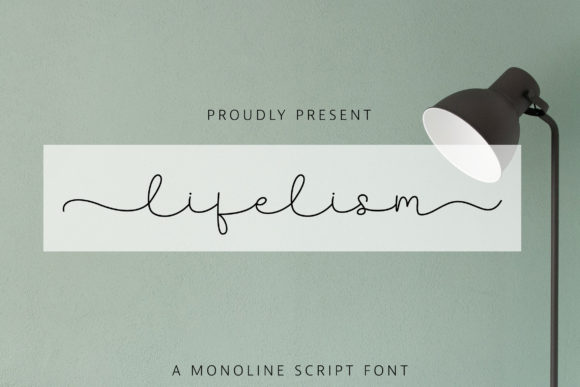
Embark on a captivating journey with Lifelism Font, a mesmerizing script typeface that will ignite your creativity and transform your designs into masterpieces.
Unleash the alluring charm of handwritten elegance with Lifelism Font, meticulously crafted to evoke the beauty of traditional penmanship. Each character exudes a graceful balance, intertwining harmoniously to elevate your designs to new heights.
Step into a realm of endless possibilities, where Lifelism Font effortlessly adapts to a myriad of creative endeavors. Whether you seek to craft captivating logos, design alluring invitations, or add a touch of sophistication to your social media presence, Lifelism Font empowers you to make a lasting impression.
Indulge in the captivating allure of Lifelism Font, a font that embodies the essence of grace and elegance. Its delicate strokes and flowing curves will captivate your audience, leaving them spellbound by the sheer beauty of your creations.
Discover the transformative power of Lifelism Font today, and let your creativity soar to unprecedented heights. Experience the joy of crafting designs that exude charm, elegance, and a timeless appeal that will resonate with your audience.